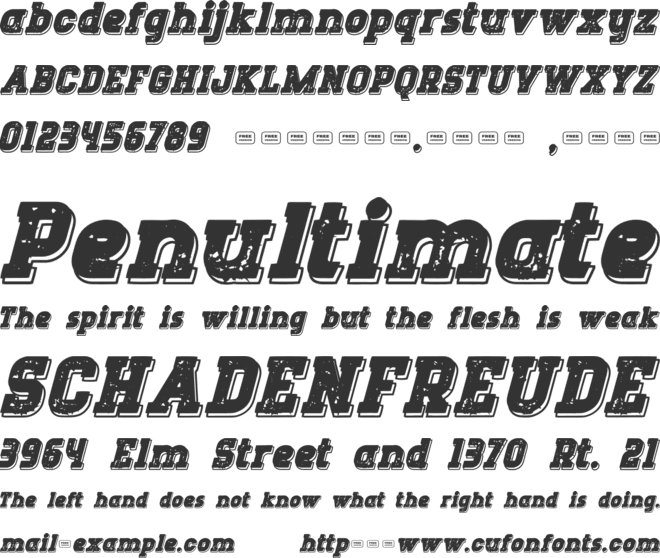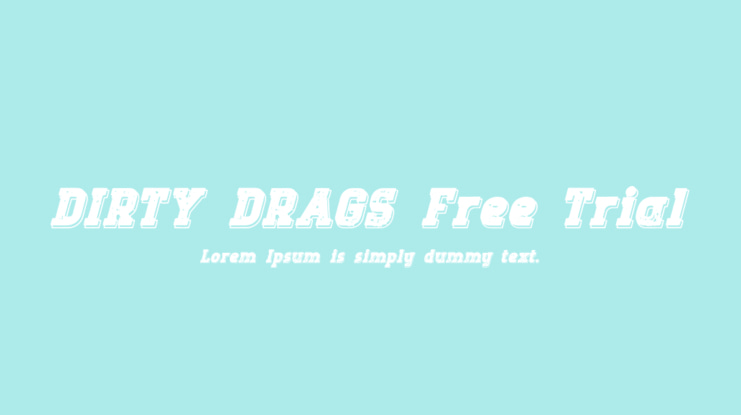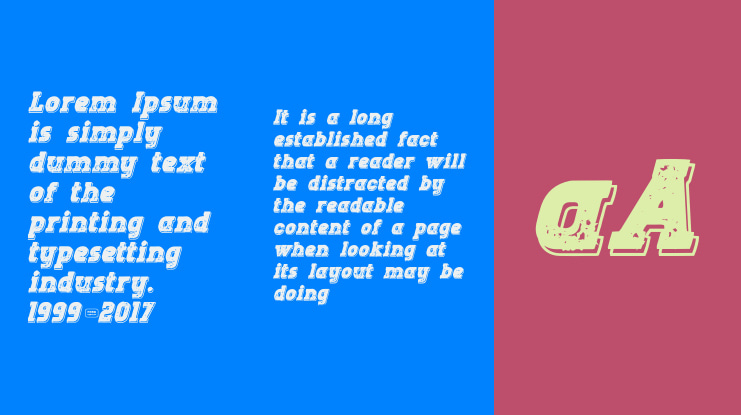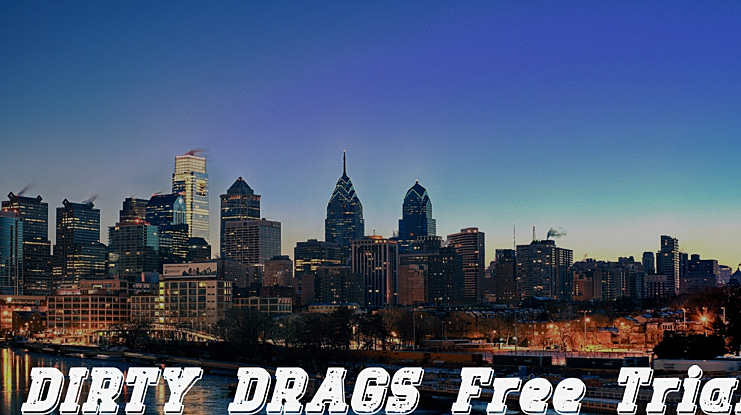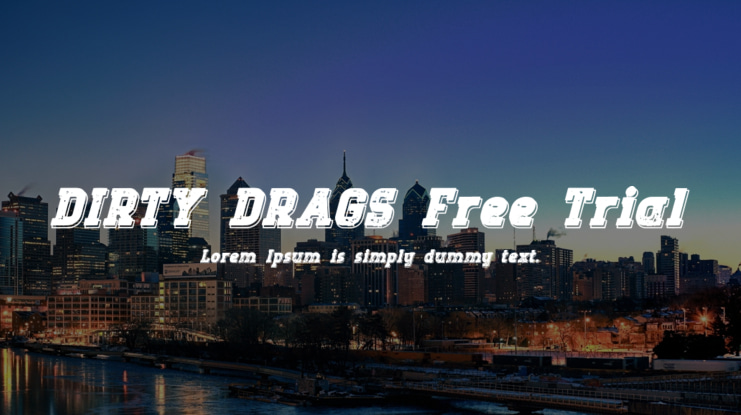
DIRTY DRAGS Free Trial Font
Dirty Drags is a rough slab serif font useful for a wide variety of designs, its charming look will definitely make your crafts more fabulous!